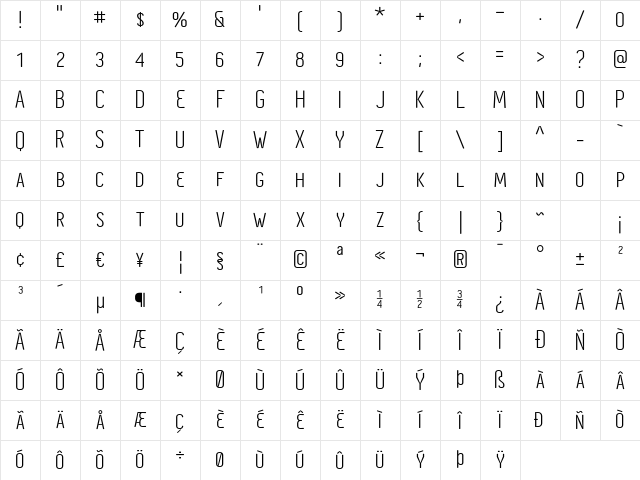
Complete Cynapse Pro SC Regular glyph index. Displaying only characters natively supported by Cynapse Pro SC Regular font.
Cynapse Pro SC is a composed and adaptable typeface that performs quietly and consistently across a wide range of design contexts.
Who designed the Cynapse Pro SC Regular font?